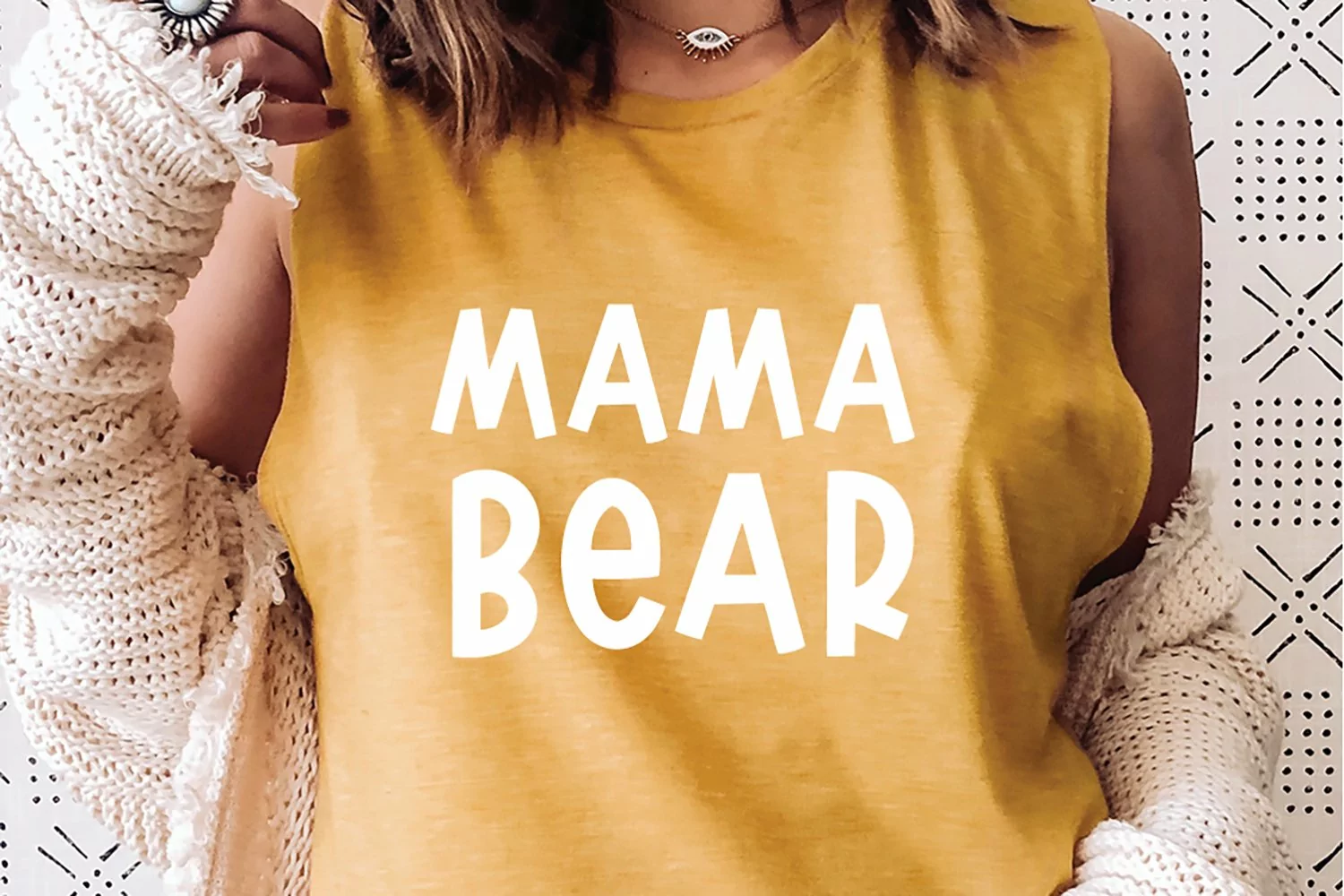
"Peach Cakes" hand lettered installable font.
Peach Cakes is bold display font. This works great as both display or filler text. Use it for home decor, party invitations, logos, etc.! This is the perfect display font to have on hand.
Font includes: All caps glyphs, numbers, basic punctuation, and international characters.